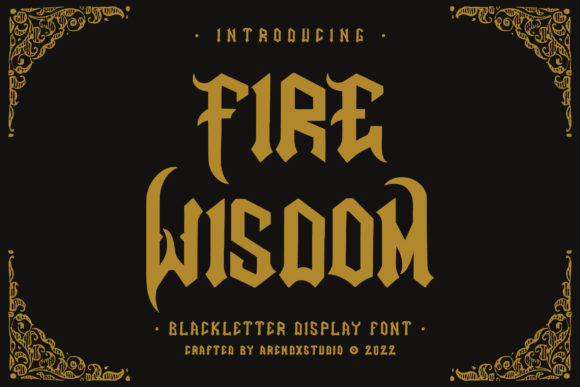
Discover the Fire Wisdom Font - A Gothic Masterpiece for Your Creative Projects:
In a realm where imagination reigns supreme, the Fire Wisdom Font emerges from the depths of creativity, ready to ignite your designs with its captivating allure. Inspired by the mystical fusion of gothic and horror aesthetics, this blackletter font stands as a testament to the power of typography, beckoning you to unleash your inner artist.
Fire Wisdom's intricate characters possess a timeless charm, evoking the essence of ancient manuscripts and medieval tales. Its sharp angles and striking curves dance across the page, creating a visual symphony that captivates the senses. Swirls and serifs intertwine gracefully, inviting you to explore the depths of your imagination and bring forth masterpieces that transcend the ordinary.
With Fire Wisdom as your creative ally, the possibilities are endless. Let your words burn brightly on Christmas cards, posters, flyers, and social media graphics. Craft logos that exude an air of mystery and intrigue, leaving a lasting impression on your audience. Design T-shirts, mugs, and other merchandise that showcase the font's captivating beauty, turning everyday objects into works of art.
Fire Wisdom is more than just a font - it's an open invitation to embrace the extraordinary. Its PUA encoding grants you effortless access to a treasure trove of glyphs and ligatures, empowering you to unleash your creativity without bounds. Whether you're a seasoned designer or just starting your artistic journey, Fire Wisdom is the perfect tool to ignite your imagination and leave a trail of awe-inspiring creations in your wake.
So, let the Fire Wisdom Font be your guiding light as you embark on a creative odyssey, transforming your projects into captivating works of art. Its gothic charm and horror-inspired aesthetics will add a touch of mystery and intrigue to your designs, leaving your audience spellbound and eager for more. Embrace the power of Fire Wisdom and watch your creativity flourish like never before!